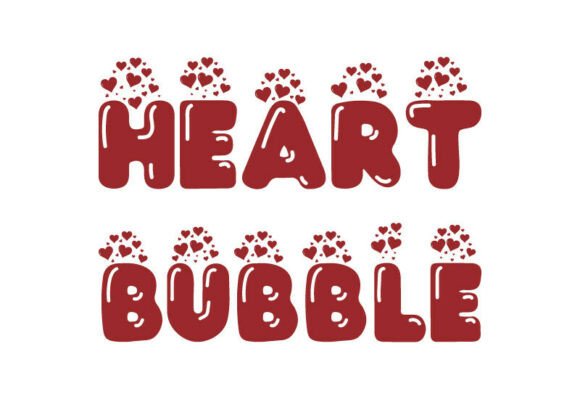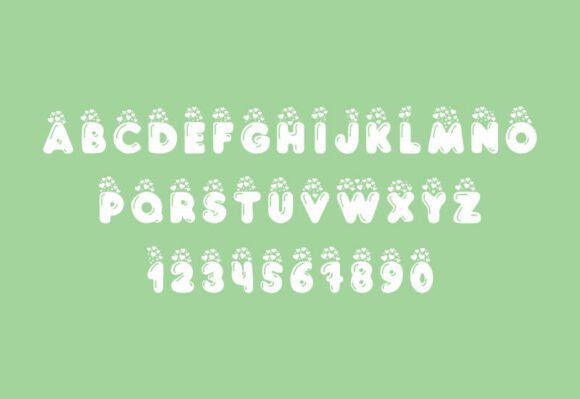
The Birth of a Timeless Love Letter
Do you remember the moment when you first discovered the perfect font to express your feelings to that special someone? For many of us, it’s a moment that still brings a smile to our faces. Perhaps it was a handwritten note, a heartfelt card, or a romantic email that sealed the deal. Whatever it was, we know that the right font can make all the difference in conveying our emotions. And that’s exactly what the Heart Bubble Font does – it captures the essence of love in a beautiful, typographic representation.
Designed to radiate joy and nostalgia, the Heart Bubble Font is a must-have for designers who want to add a touch of whimsy and romance to their projects. Its unique blend of heart shapes and bubbles creates a charismatic typographic allure that’s sure to captivate audiences. Whether you’re creating a wedding invitation, a love letter, or a social media post, this font is sure to make your message stand out.
Key Features of Heart Bubble Font
- Unique Characteristics: The Heart Bubble Font features a unique, playful design with a mix of rounded and pointed shapes, creating a whimsical and eye-catching effect.
Designer Review: Heart Bubble Font
I recently had the chance to work with the Heart Bubble Font, and I must say, it’s a unique and playful addition to any design project. Here are some of the things that really work well:
- ✨ The font’s whimsical feel is perfect for designs that need a touch of romance or playfulness.
- ✨ The bubble-like shapes add a fun and quirky element to text, making it stand out in any design.
- ✨ The font is highly customizable, with a wide range of size and color options.
However, there are some limitations to keep in mind:
- ⚠️ The font can be overwhelming if used in large quantities or in complex designs.
- ⚠️ Some letters may not be as clear or legible as others, particularly in smaller font sizes.
- ⚠️ The font may not be suitable for formal or professional designs, as it can come across as too playful.
Overall, I think the Heart Bubble Font is a great addition to any designer’s toolkit, but it’s essential to use it judiciously and in the right context. With a little creativity and restraint, this font can add a delightful touch to any design project.
The Heart Bubble Font is commonly used for:
- Valentine’s Day and romantic-themed designs.
- Wedding invitations and wedding stationery.
- Children’s birthday party invitations and decorations.